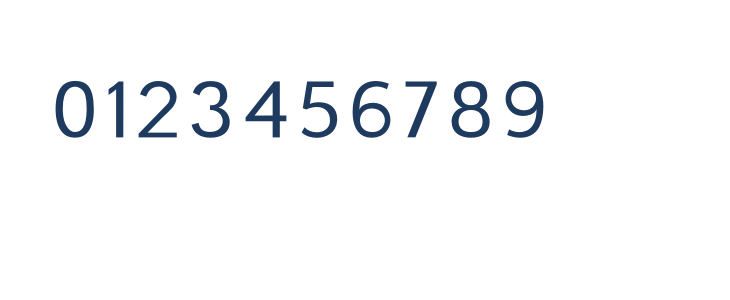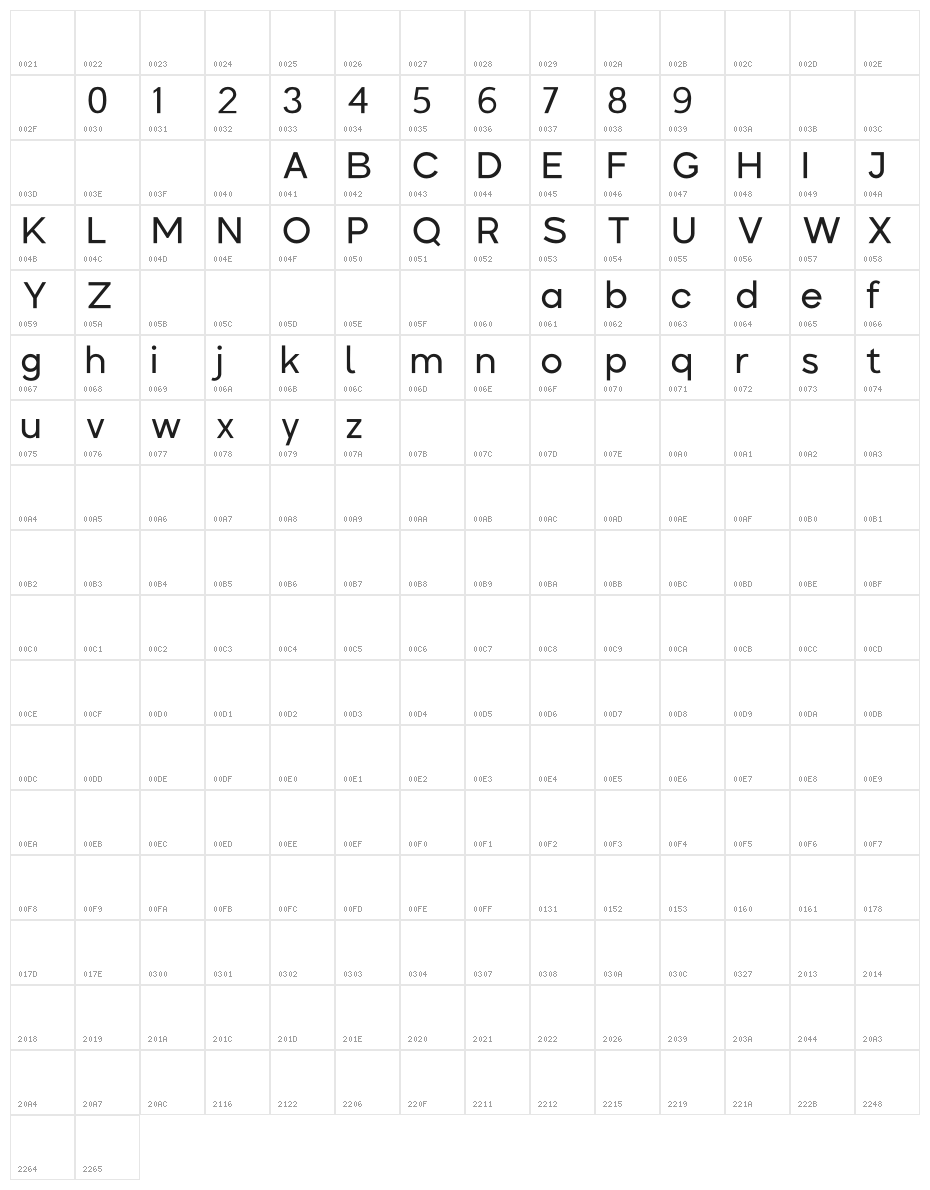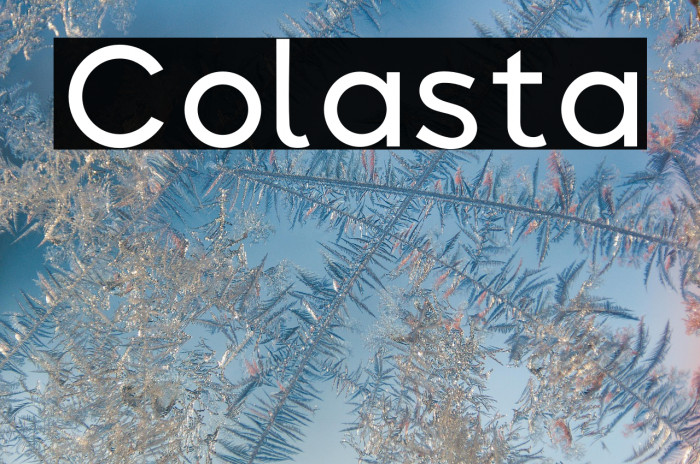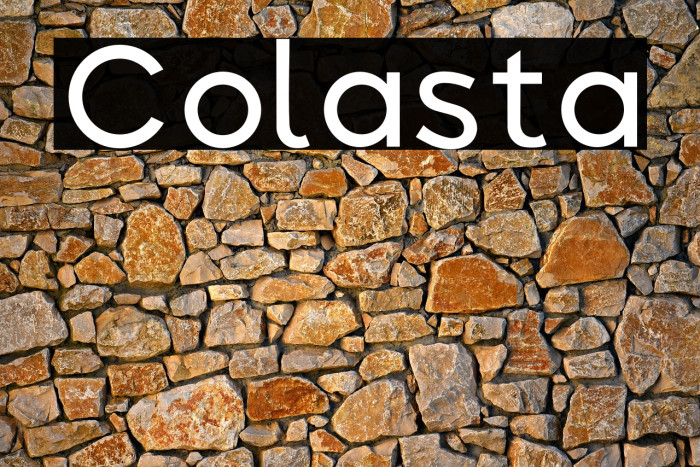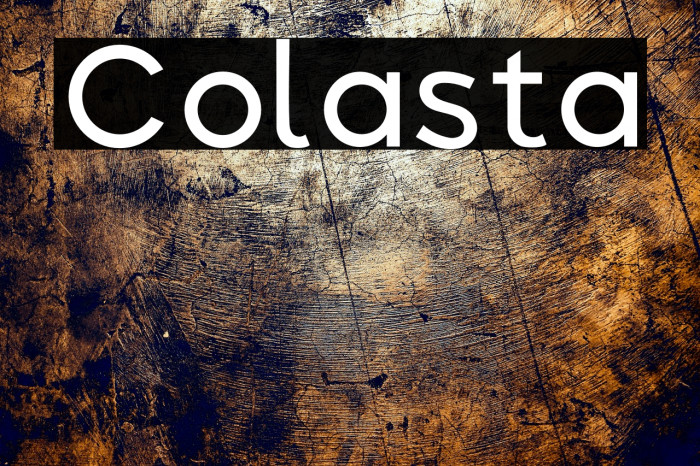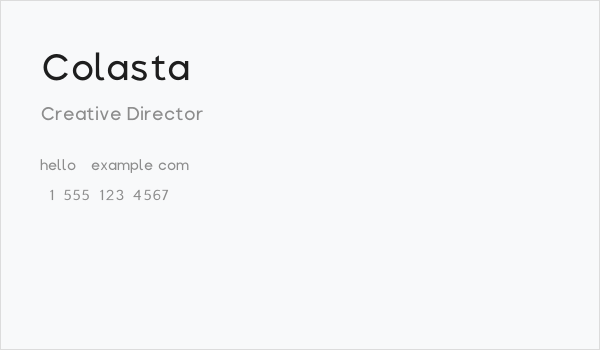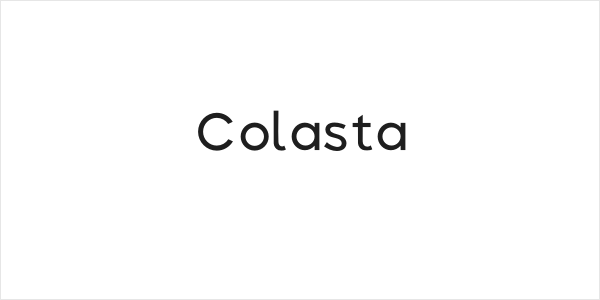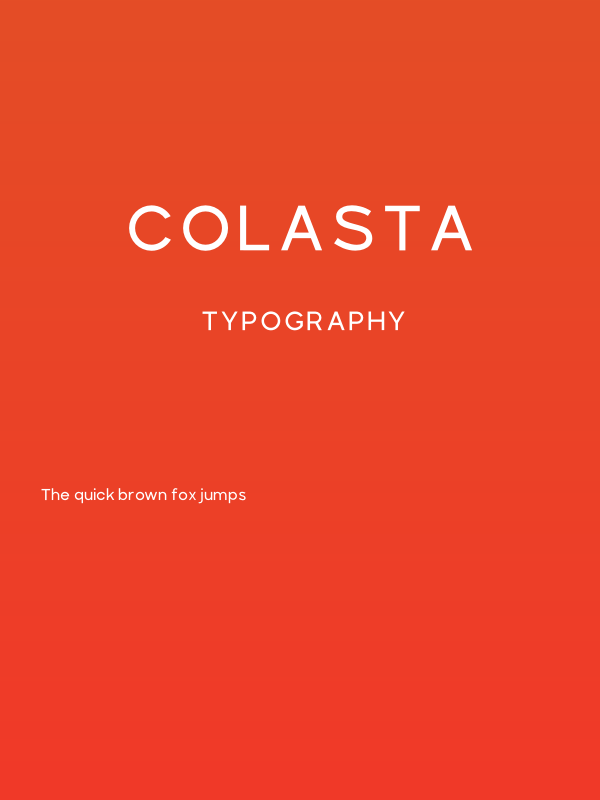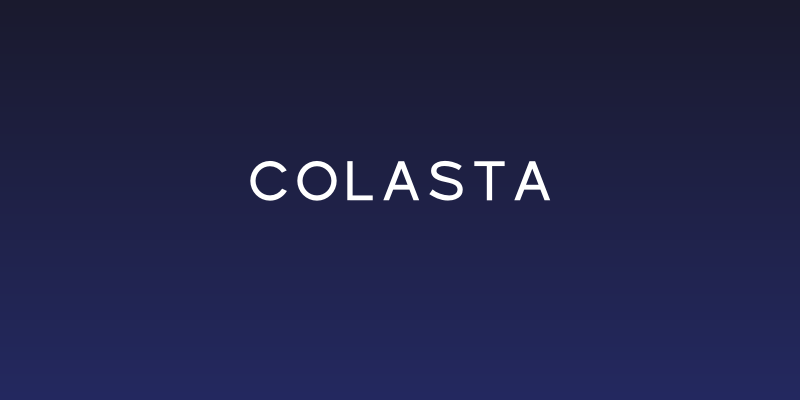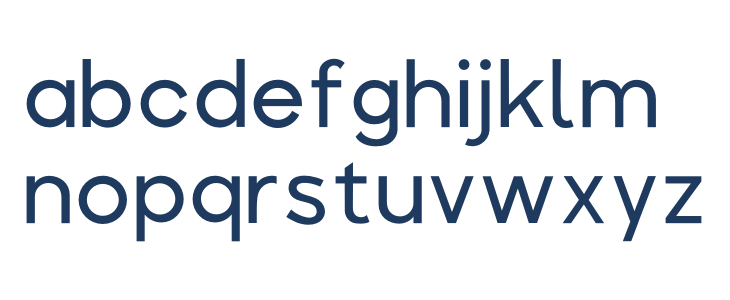
Colasta Font
Colasta Description
This font features a clean and modern sans-serif design, characterized by its geometric shapes and uniform stroke widths. The characters are well-balanced, offering a harmonious appearance that is both professional and approachable. The uppercase letters are bold and assertive, while the lowercase letters maintain a friendly and accessible look. The numerals are clear and easy to read, making them suitable for various applications. The overall design is versatile, suitable for both digital and print media, ensuring readability across different sizes and formats.
| Use Case | Headlines, Body text, Logos |
| Proposed Projects | Ideal for branding, web design, corporate materials, and editorial layouts. |